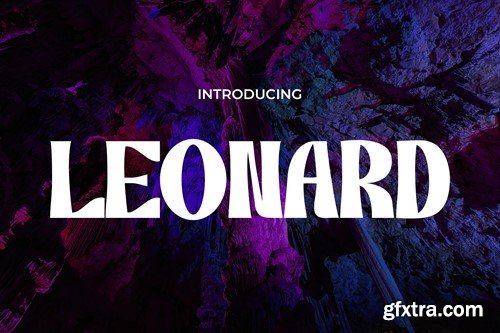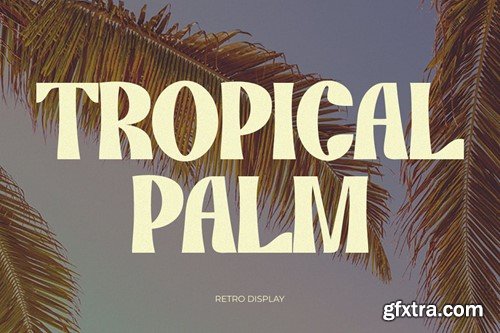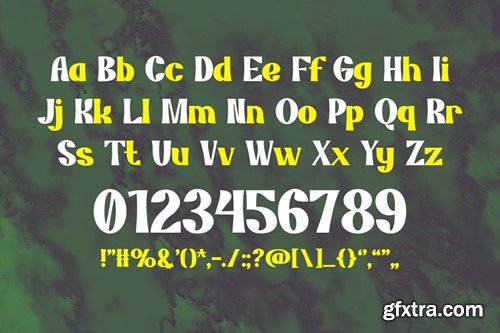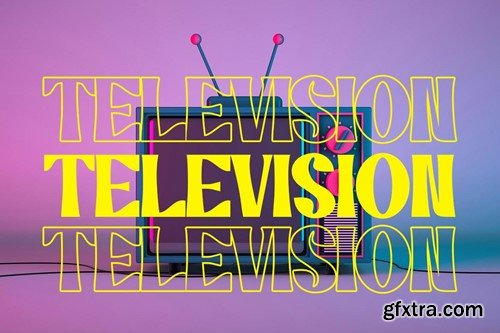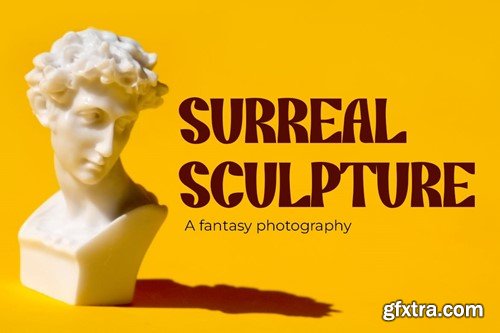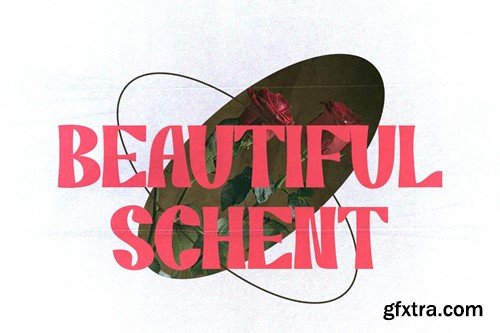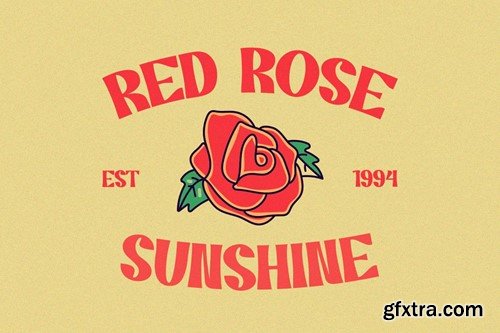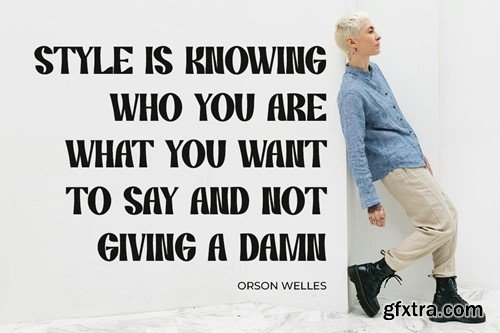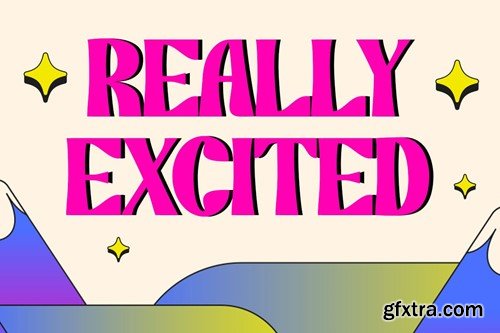
伦纳德 - 一种复古、现代与 vintage 字体的融合 373SHXQ
Leonard is a distinctive font that skillfully merges the nostalgic allure of retro design with the elegance of modern and classic styles, creating a unique vintage look. This font truly celebrates time-honored aesthetics, updated with contemporary sensibilities, making it a versatile choice for various design applications. In logos, Leonard adds a touch of sophistication, blending traditional charm with modern simplicity. This font's timeless character is perfect for enhancing quotes with a sense of enduring elegance. Leonard sets a classic and memorable tone for invitations, making each event feel special and distinguished. When applied to posters and greetings, it exudes a warm and welcoming vibe, engaging audiences with its unique blend of styles. In the realms of packaging and branding, Leonard offers a distinctive identity that bridges the gap between old-world charm and modern elegance. For book covers, event promotions, headlines, and advertising, Leonard ensures your message stands out with its harmonious blend of the past and the present, captivating viewers with its timeless appeal.